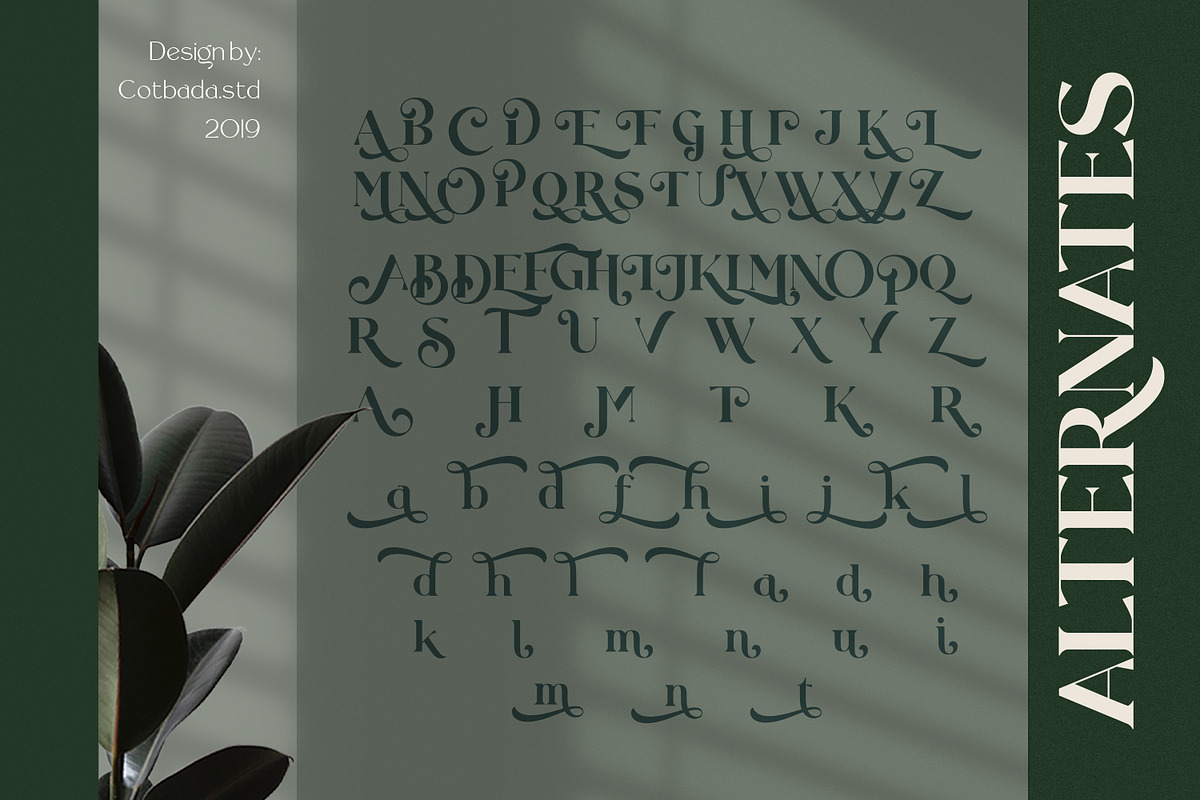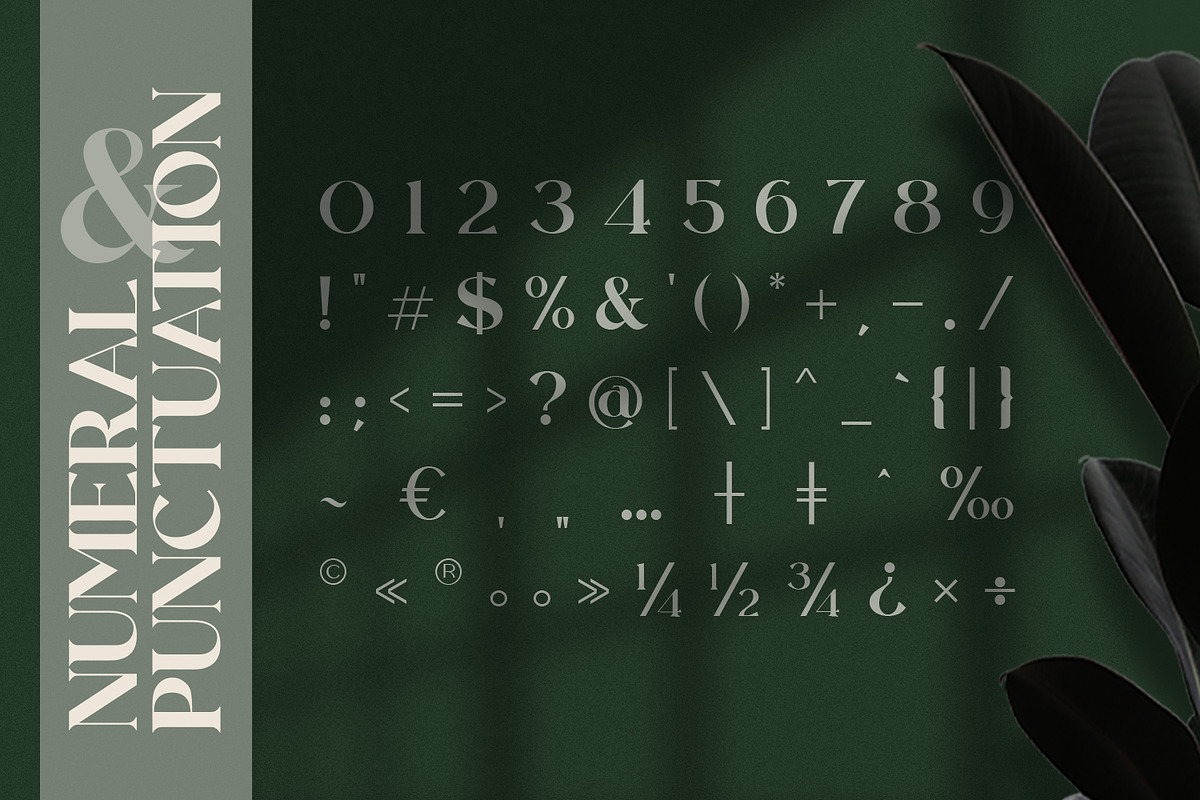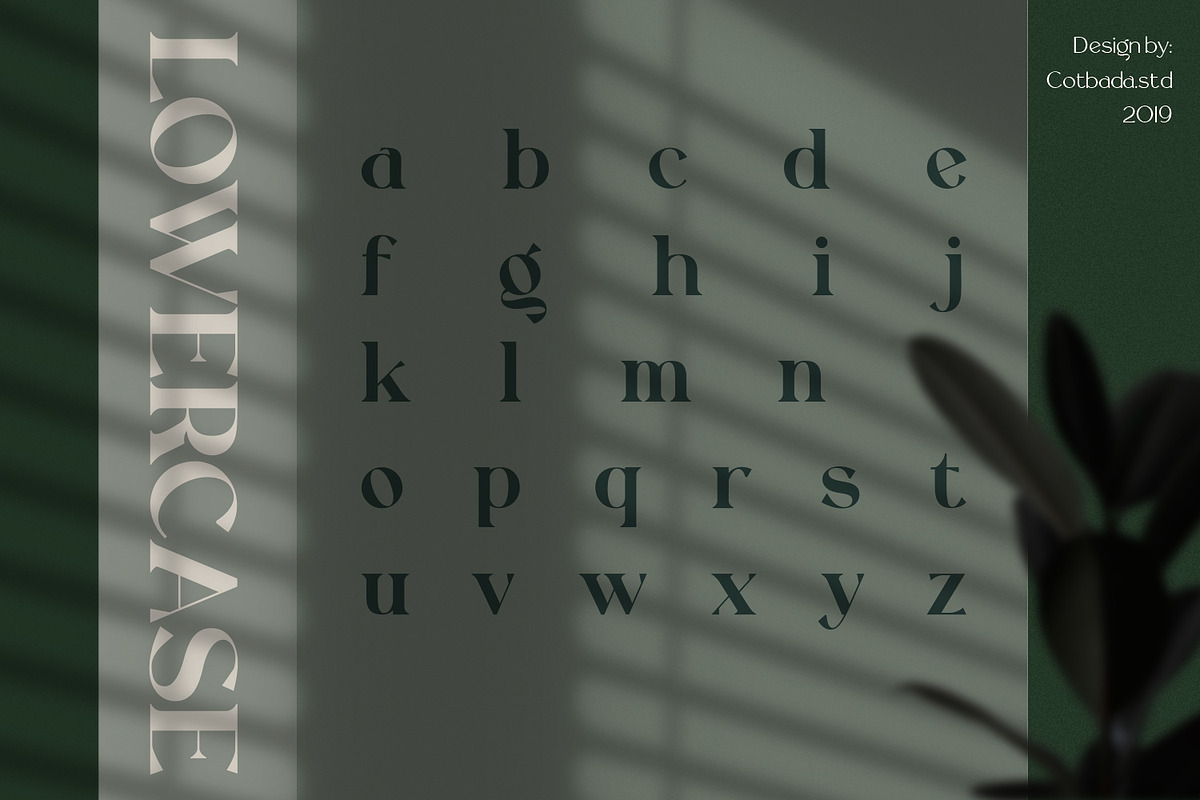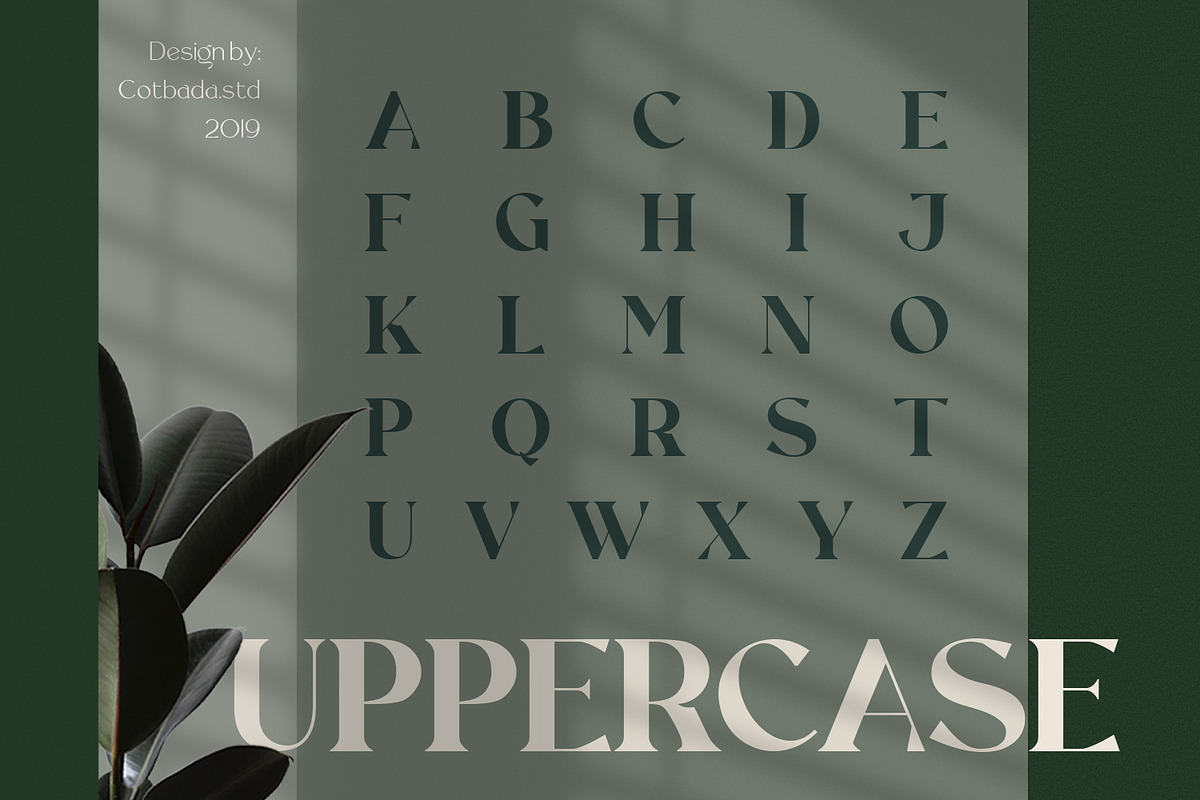
Rollgates Fabulous
Rollgates Fabulous is a gorgeous serif typeface that is both classically elegant and modern. Create beautiful wedding invitations, use it as an elegant solution for your next magazine layout, power point or choose Rollgates Fabulous for any graphics that require a sleek look with a vintage flair.